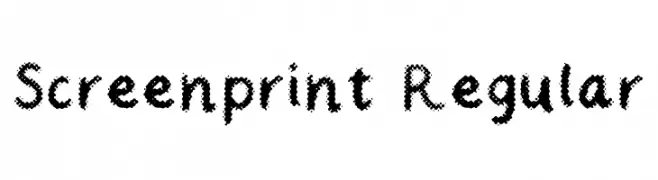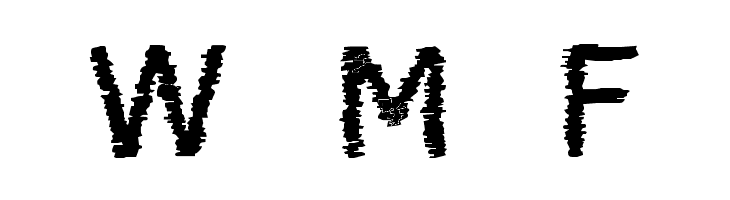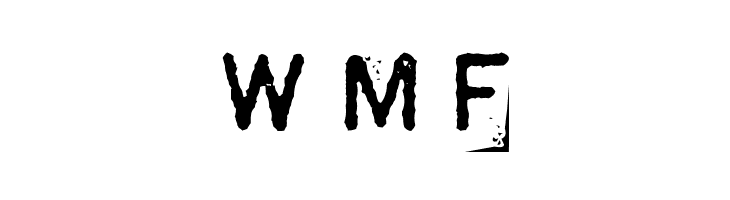
( Fonts by www.abecedarienne.com )
A distressed, textured font with a vintage, rugged appearance.
( Fonts by www.abecedarienne.com )
A distressed, grunge-style font with a bold, textured appearance.
( Fonts by pOPdOG fONTS - Dimitris Kolyris - popdog_fonts.tripod.com OFF SITE )
A bold, textured font with a hand-painted, dynamic style.
A bold, distressed font with a grunge texture and rugged appearance.
( Fonts by Cumberland Fontworks - http://www222.pair.com/sjohn/fonts.htm - S. John Ross )
A bold, distressed font with a grunge aesthetic.
( Fonts by Cumberland Fontworks - http://www222.pair.com/sjohn/fonts.htm - S. John Ross )
A bold, distressed font with a grunge texture and vintage appeal.
( Fonts by Cumberland Fontworks - http://www222.pair.com/sjohn/fonts.htm - S. John Ross )
A bold, distressed font with a grunge aesthetic and textured appearance.
( Font by Ben Nathan - www.hafontia.com )
A rugged, distressed font with bold, textured characters.
( Fonts by Barry Bujol - theoriginal19.blogspot.com )
A bold, distressed font with a grunge texture and star pattern.
( Fonts by Rodrigo German - RASDESIGN )
A bold, distressed font with a grunge texture and rugged appearance.
( Fonts by billyargel.blogspot.com - Billy Argel )
A bold, distressed font with a grunge texture and strong visual impact.
A bold, distressed font with a vintage, textured appearance.
( Fonts by Gyom Seguin - last-soundtrack.daportfolio.com )
A bold, distressed sans-serif font with a grunge texture.
( Fonts by Astigmatic One Eye Typographic Institute - Brian J. Bonislawsky - astigmatic.com )
A bold, spiky font with a crumbly texture and swollen appearance.
( Fonts by Andrew Hart - dirt2.com )
A bold, textured serif font with a vintage, distressed appearance.
( Font by kingthingsfonts.co.uk )
A textured, handcrafted font with a bold, artistic style.
( Fonts by Spork Thug Typography - Josh Wilhelm - www.lifewithouttaffy.com/taffy/blog )
A bold, distressed font with jagged edges and a rugged texture.